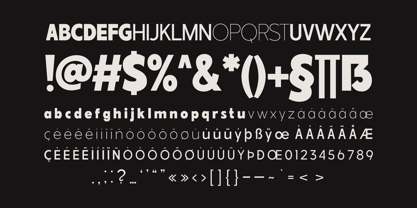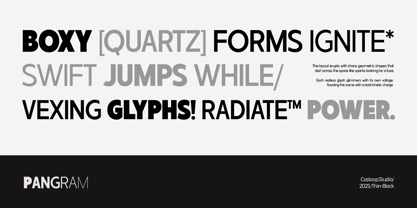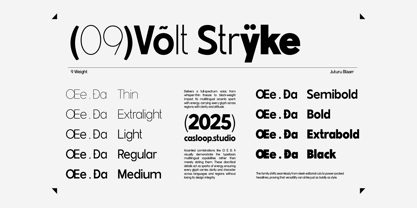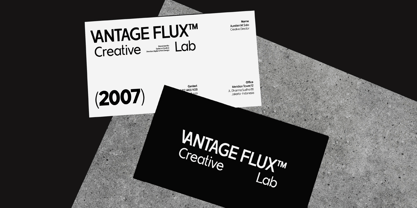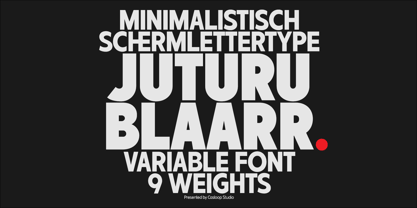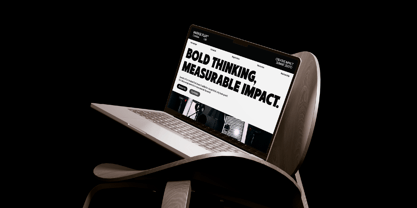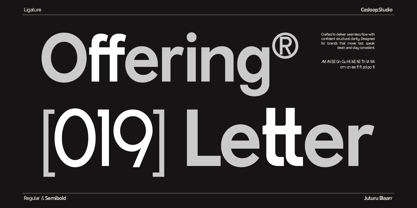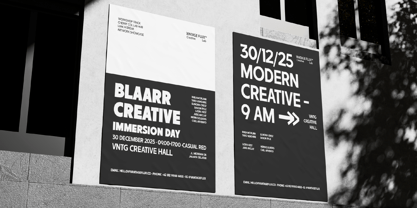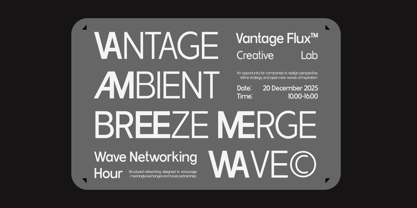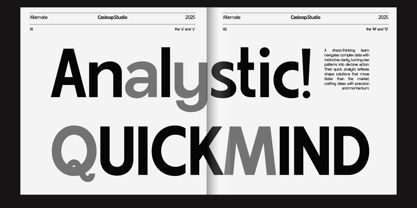
JUTURU BLAARR is a minimalist sans serif typeface crafted for contemporary logos and visual systems that prioritize clarity, structure, and confidence. Featuring balanced proportions and a disciplined shape, it performs consistently across various scales. Distinctive characters such as R, M, A, O, and S contribute to a modern, reliable presence that exudes cleanliness and intentionality, ensuring durability in design. Unlike many geometric typefaces that can feel stiff and overly mathematical, Juturu Blaarr offers a more human touch with its softer curves, comfortable spacing, and natural flow. This results in a typeface that feels bold yet warm, neat without being cold, and modern without appearing empty. Recommended pairings include Inter, DM Sans, Source Sans 3, Acumin, Proxima Nova, and Neue Haas Grotesk.